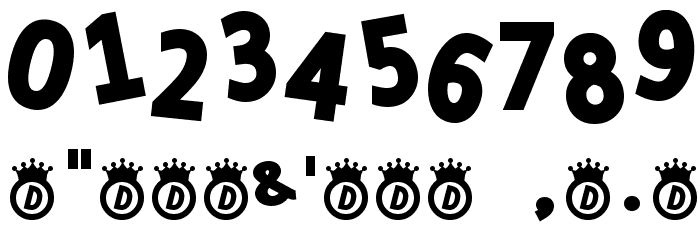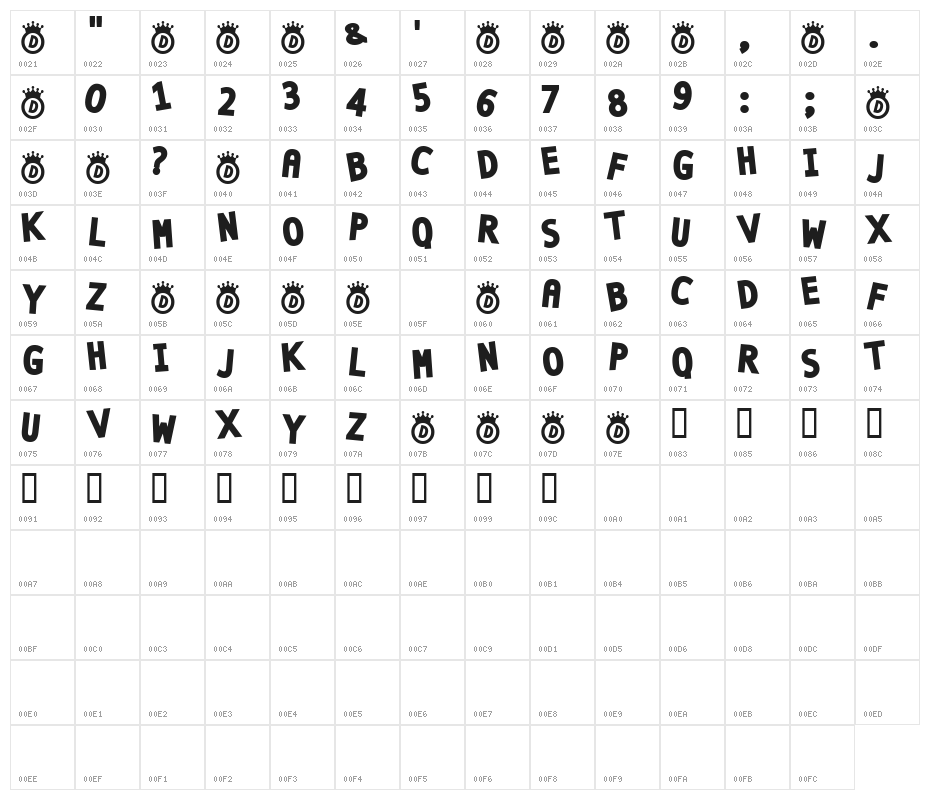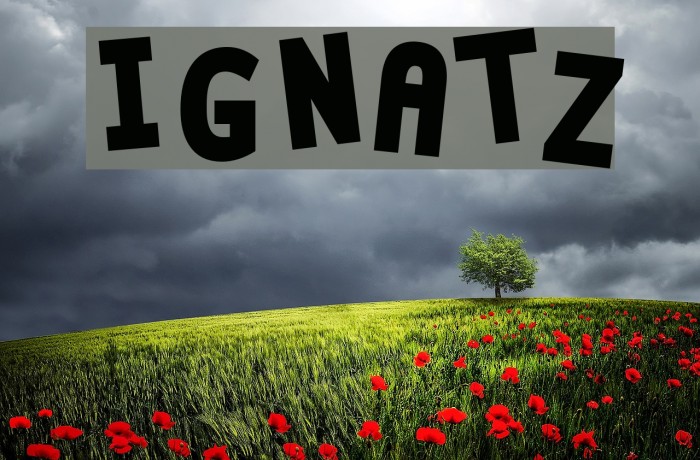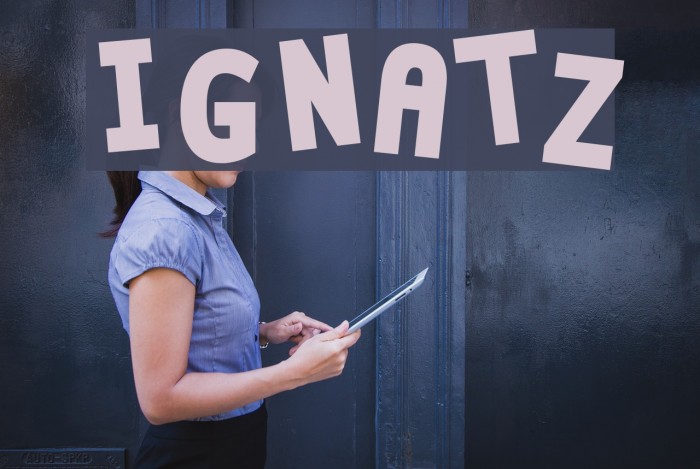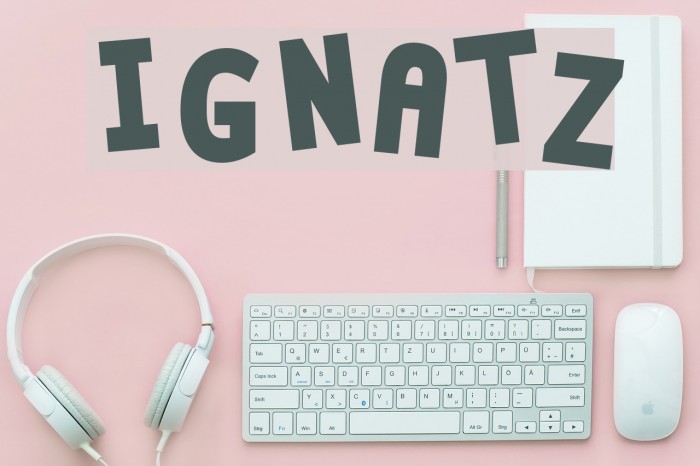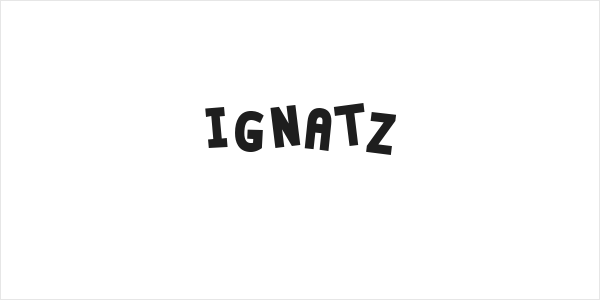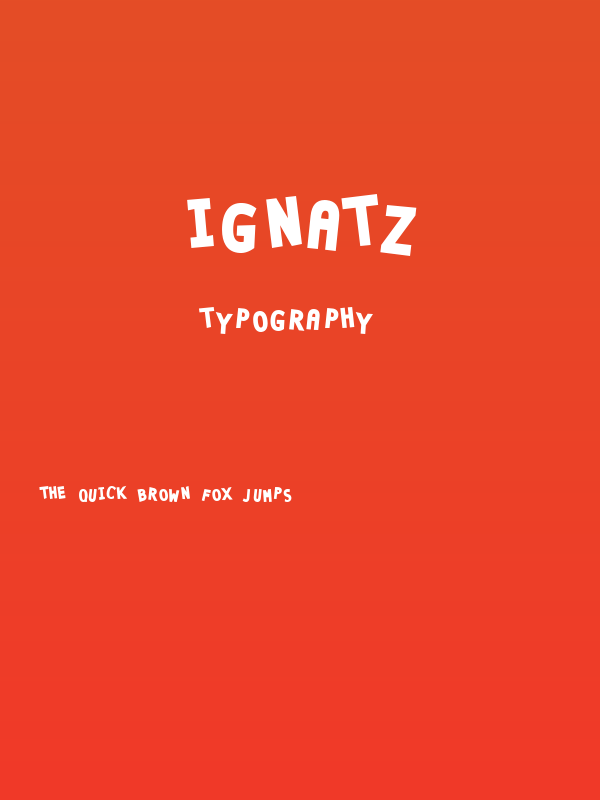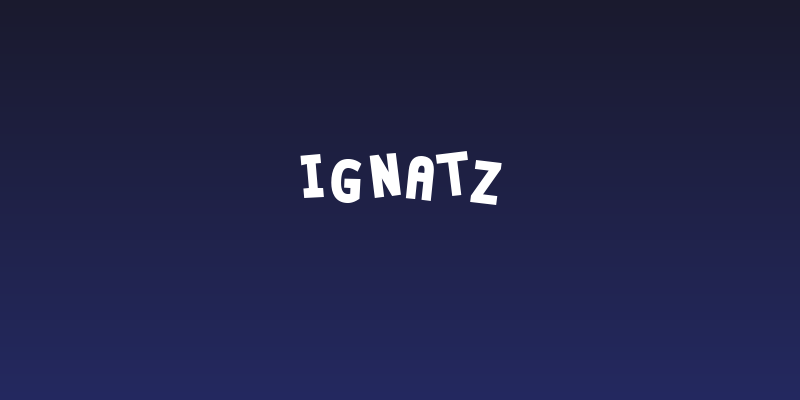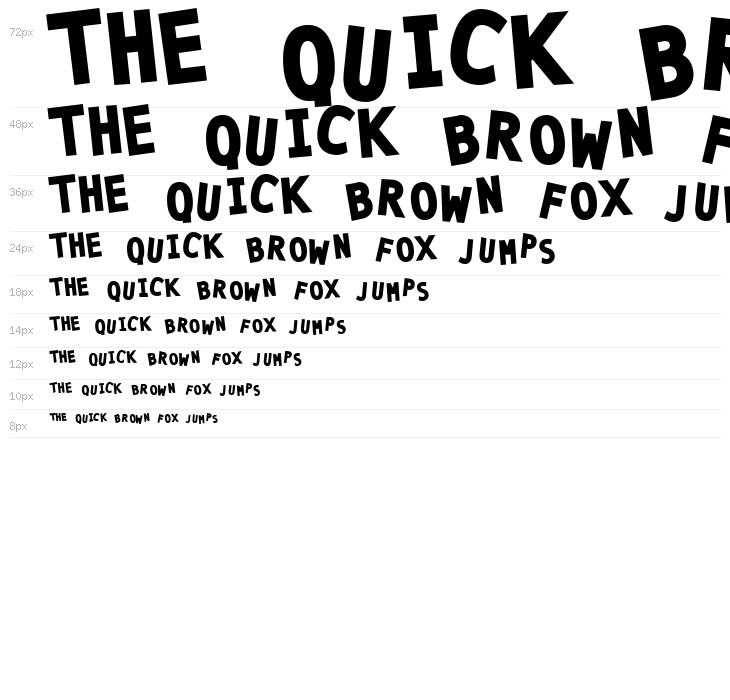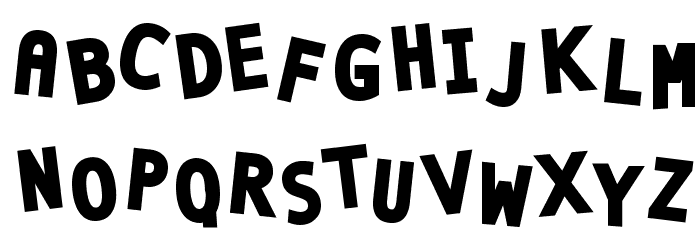
Ignatz Font
Ignatz Description
This playful and bold font features a quirky, uneven design that gives it a lively and energetic appearance. The letters are slightly tilted and vary in width, adding a sense of movement and fun. The uppercase and lowercase characters maintain a consistent style, with rounded edges and a slightly exaggerated form. Numbers and special characters follow the same whimsical design, making them stand out. The font's unique style is perfect for projects that require a touch of humor and creativity, such as children's books, comic strips, or playful branding.
| Overall Style | Playful, Quirky |
| Proposed Projects | Ideal for children's books, comic strips, playful branding, and creative posters. |